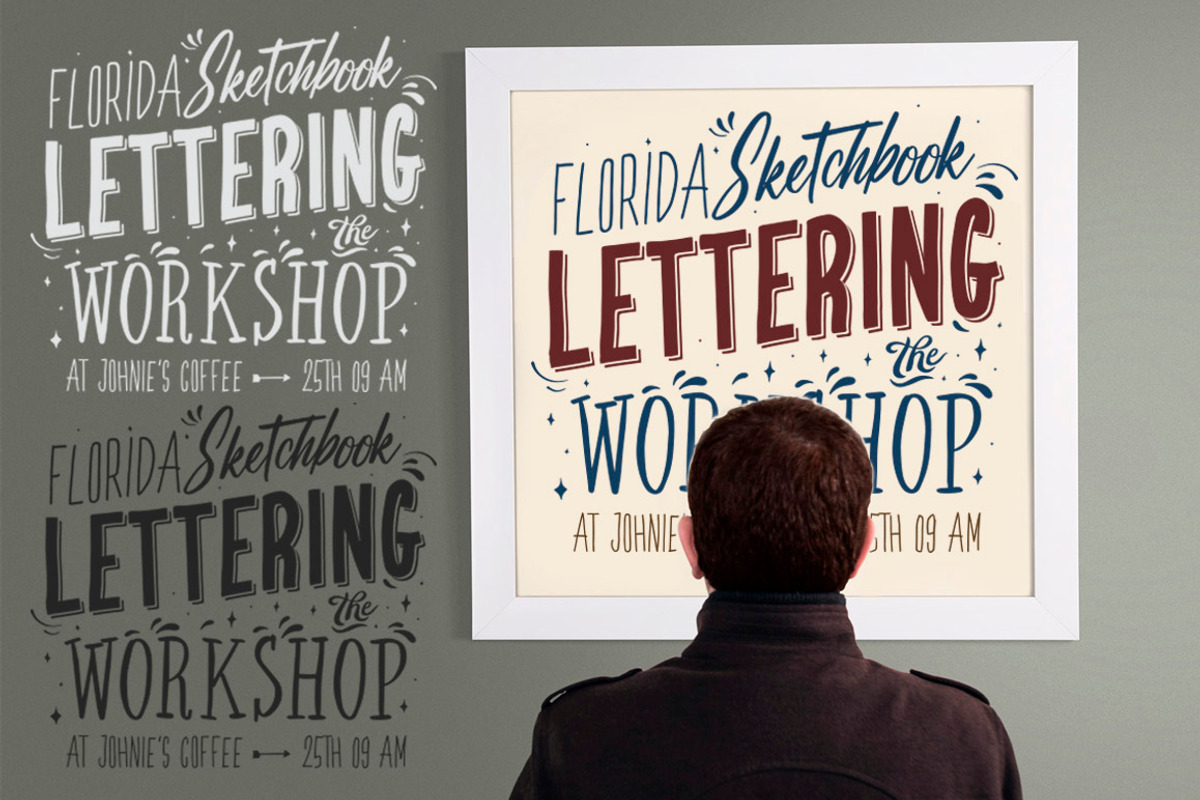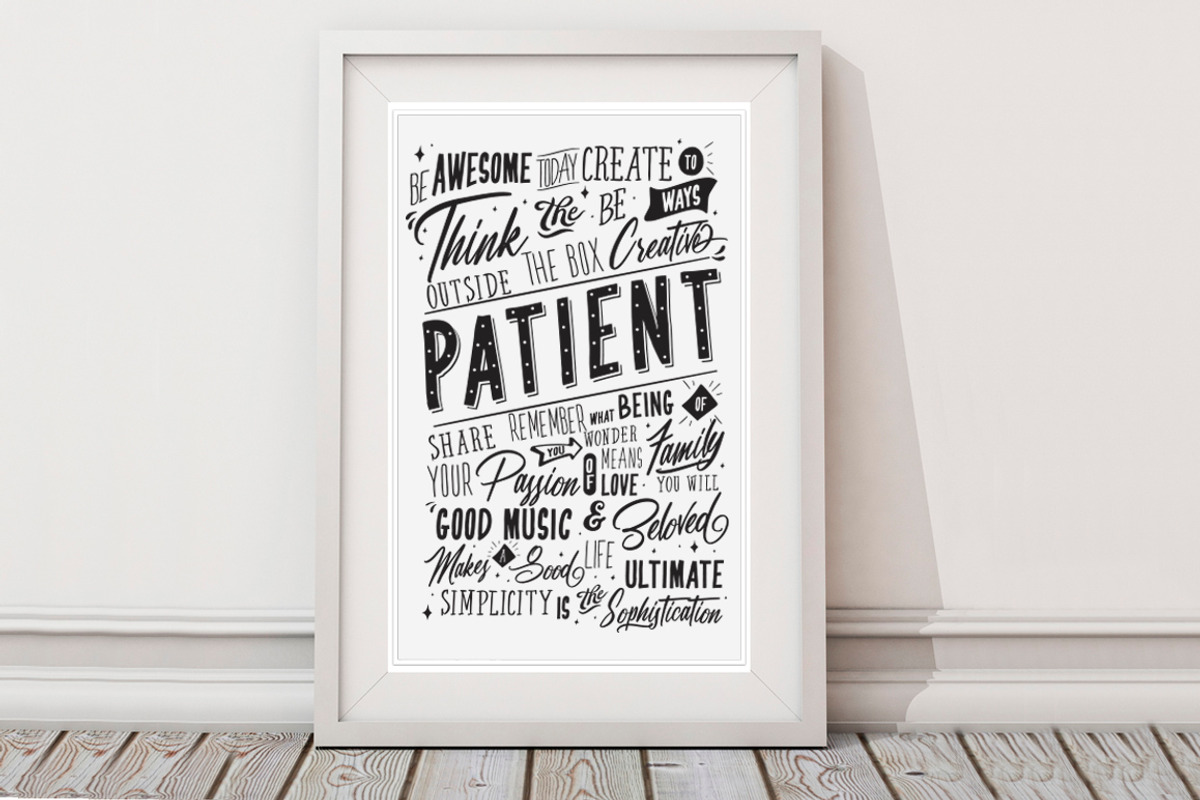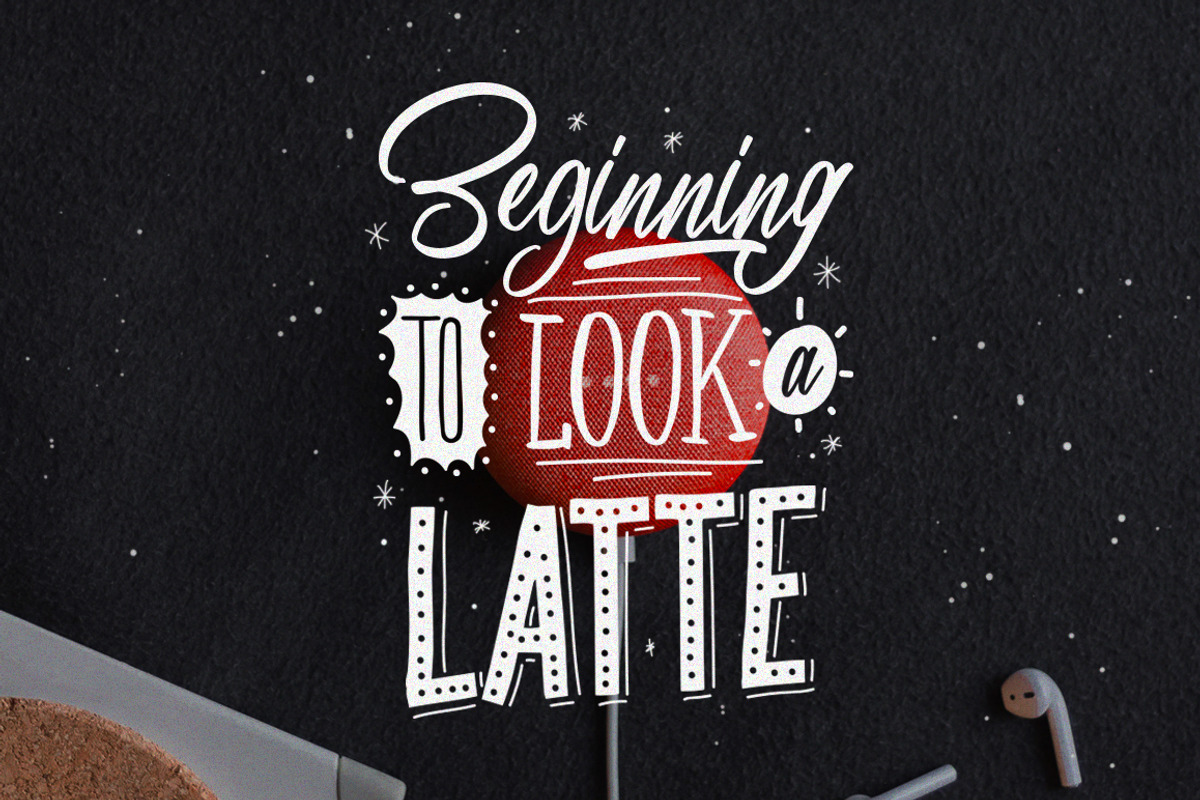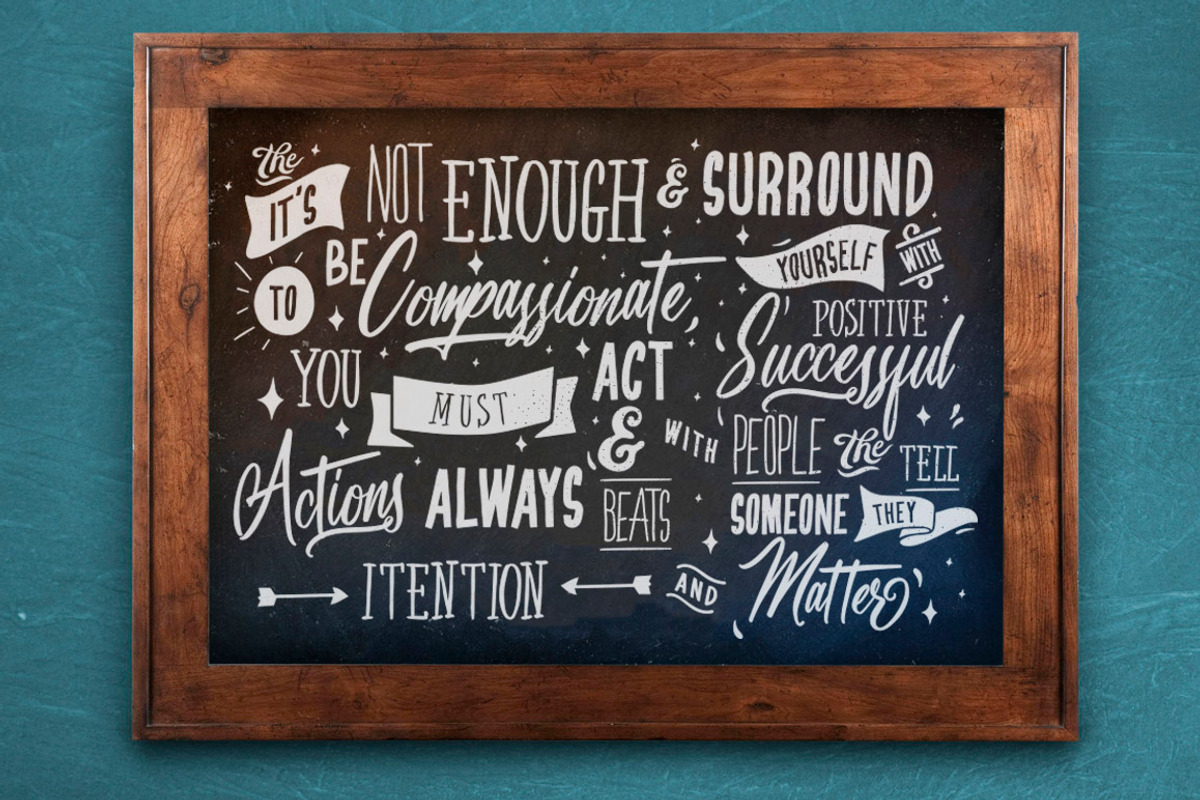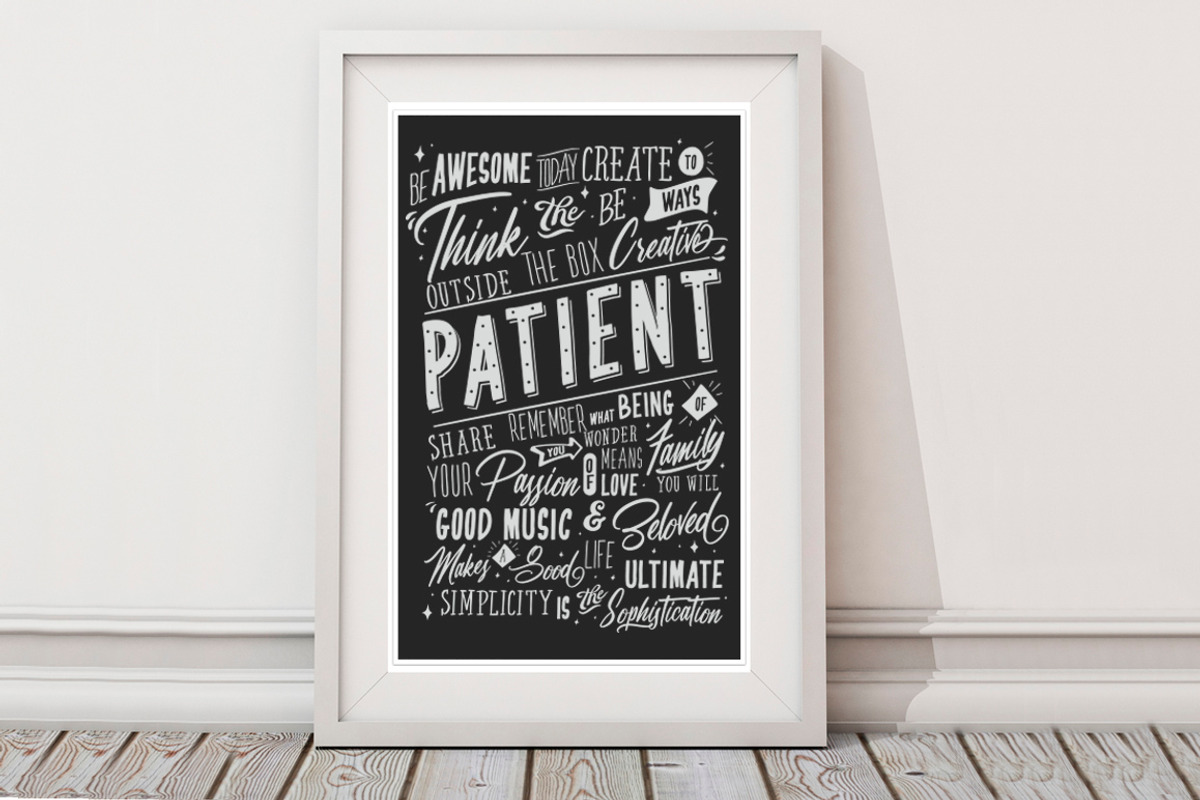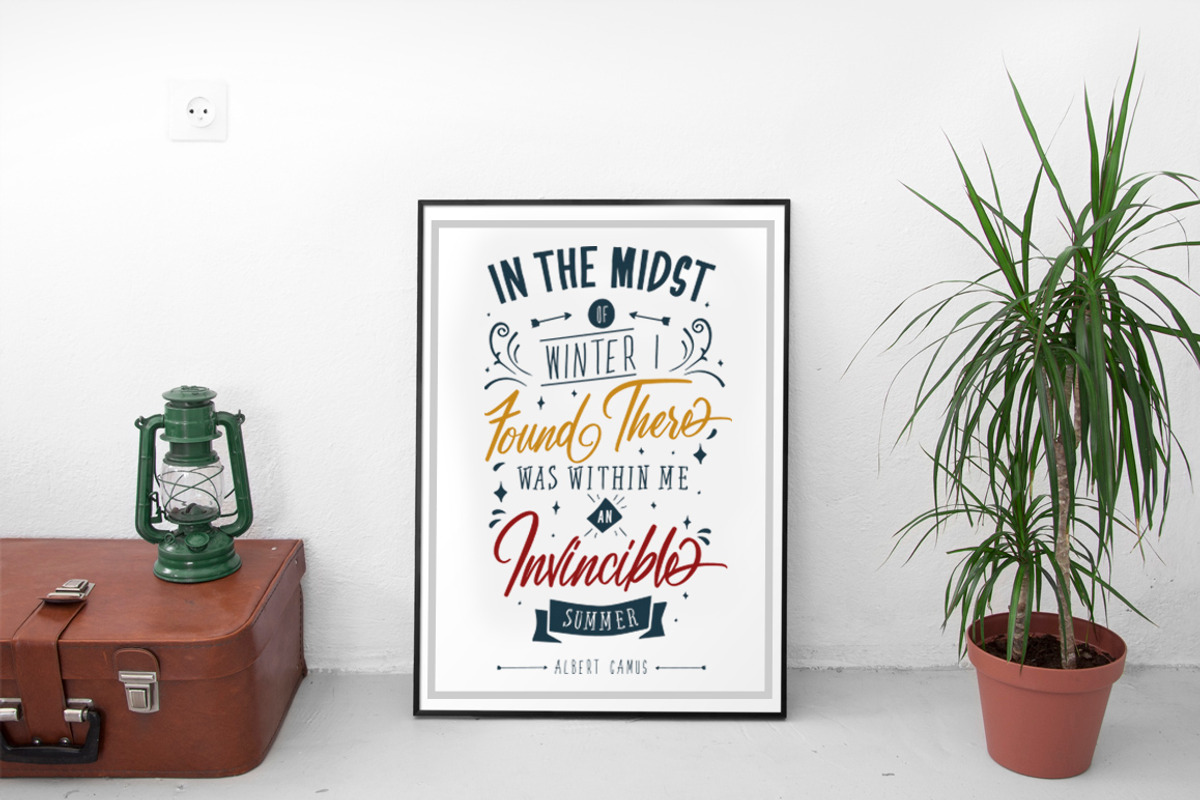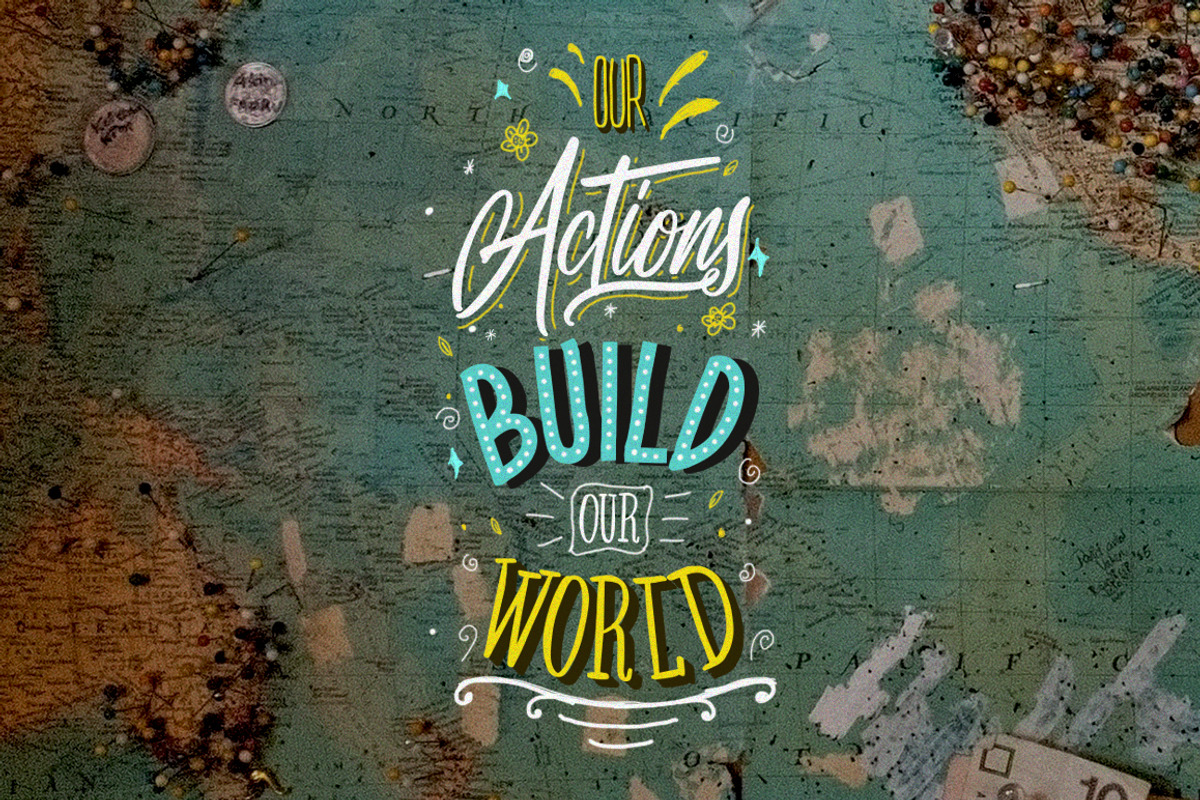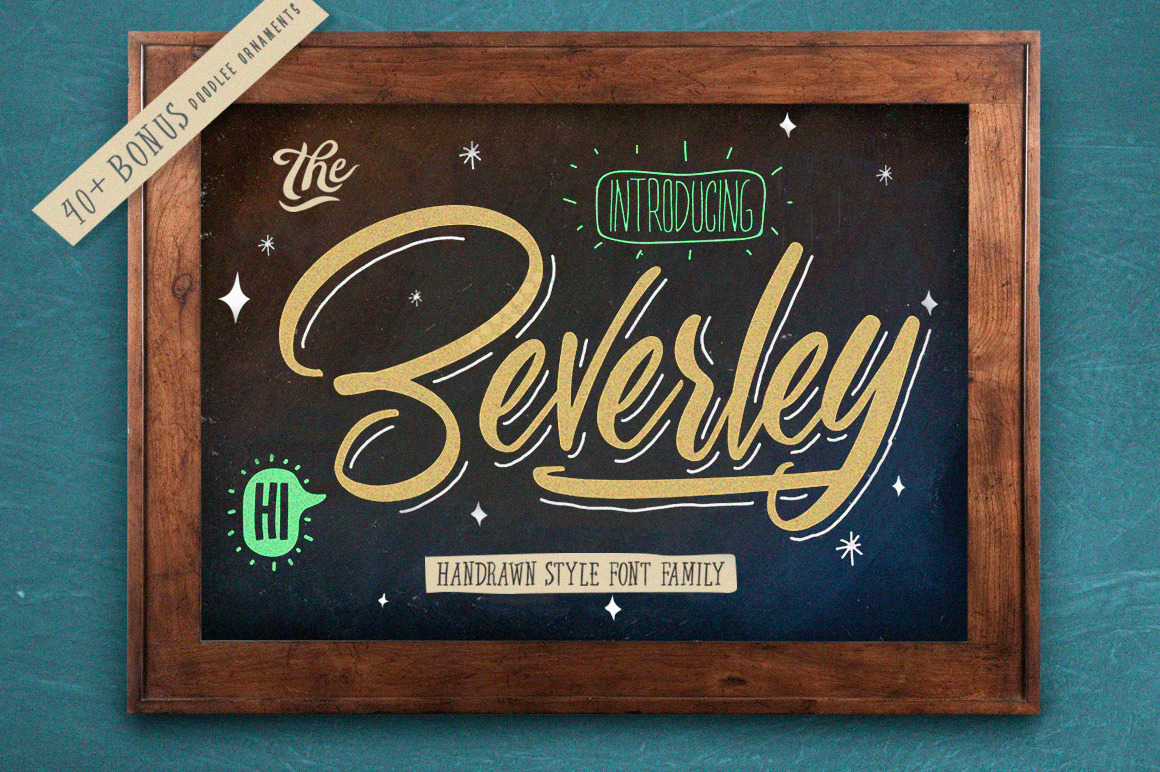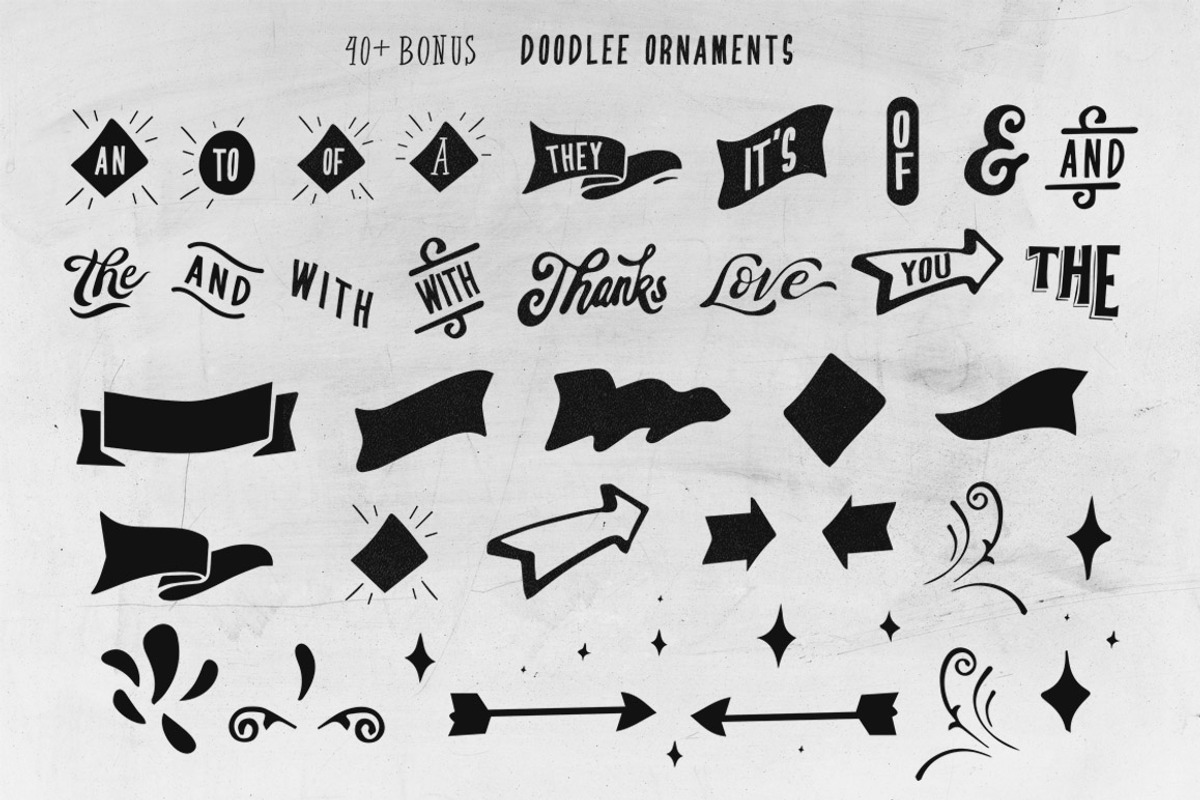
BEVERLEY FONT FAMILY
Beverley type family is a lovely handlettering, It contains three different hand drawn With this set and a little bit of love and care it is possible to create beautiful “handmade” graphics. Beverley type is optimized to feel not just like a font but like true handlettering. Beverley Type is colorful typeface available for magazine, chalkboard, quotes, logos, and many more. Beverleytype is very best choice fonts for : Wedding Invitation, quotes, Posters, Logos, Print Ads, Digital Ads, Promotion Product etc